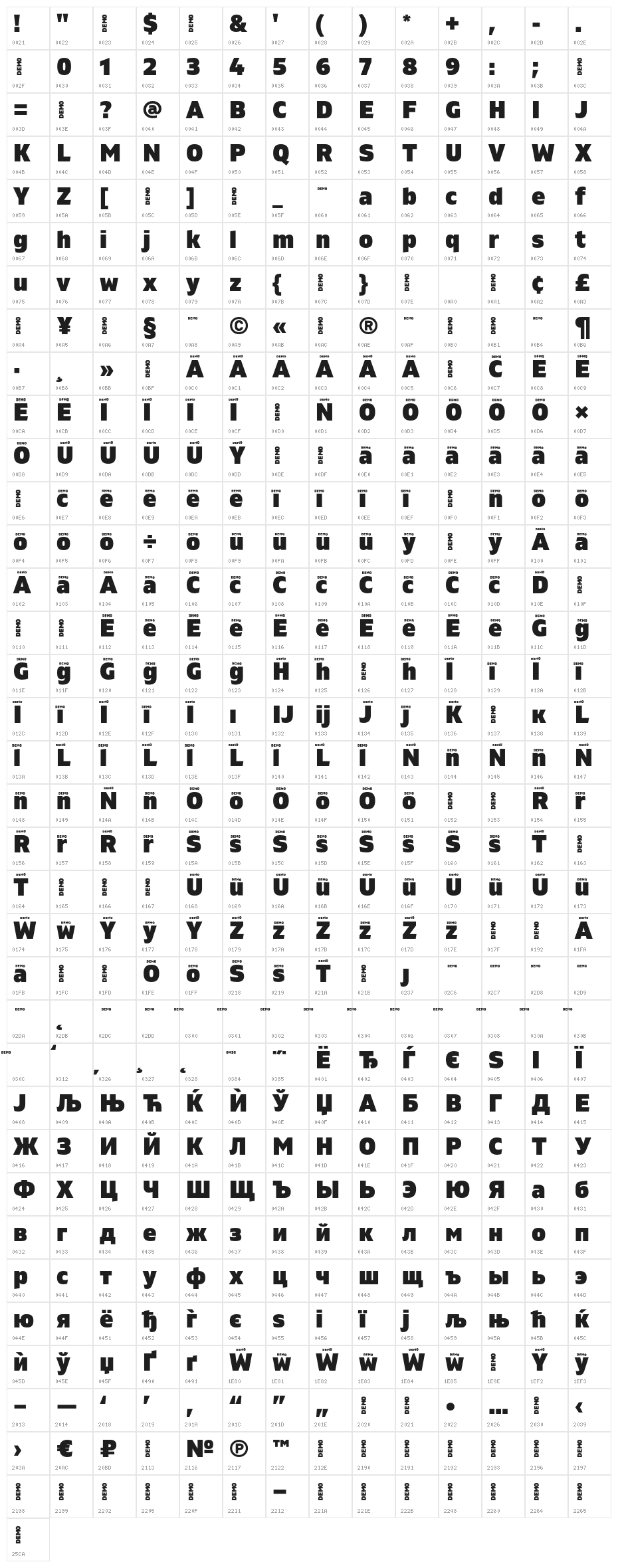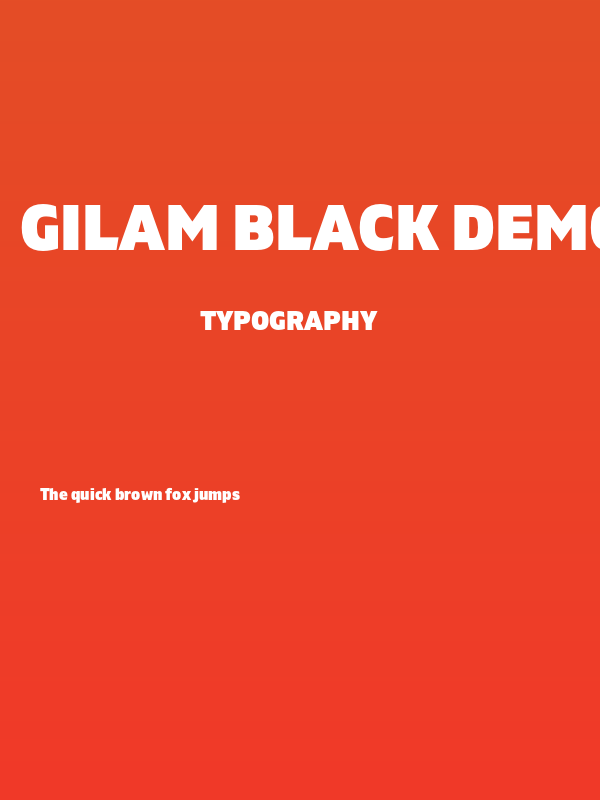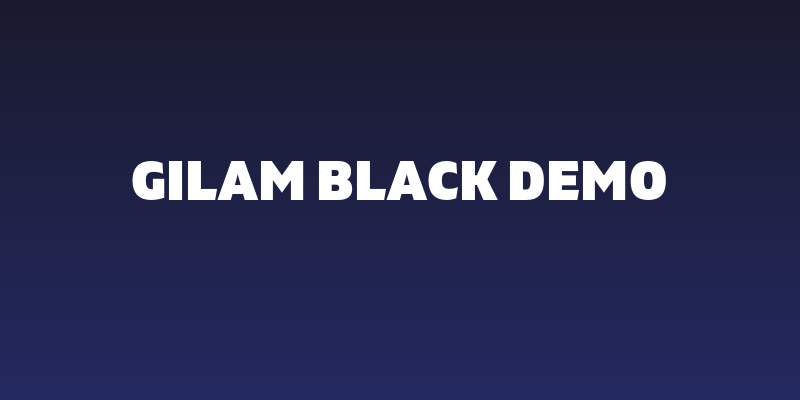
Gilam Black DEMO Font
Gilam Black DEMO Description
This font features a bold and impactful design, characterized by thick strokes and a strong presence. The uppercase and lowercase letters are uniform in width, providing a cohesive look across all characters. The numbers are equally bold, maintaining the font's overall robust appearance. Special characters are designed with the same weight, ensuring consistency throughout. This font's boldness makes it ideal for grabbing attention and making a statement.
| Proposed Projects | Ideal for headlines, posters, branding, and advertising where a strong visual impact is needed. |